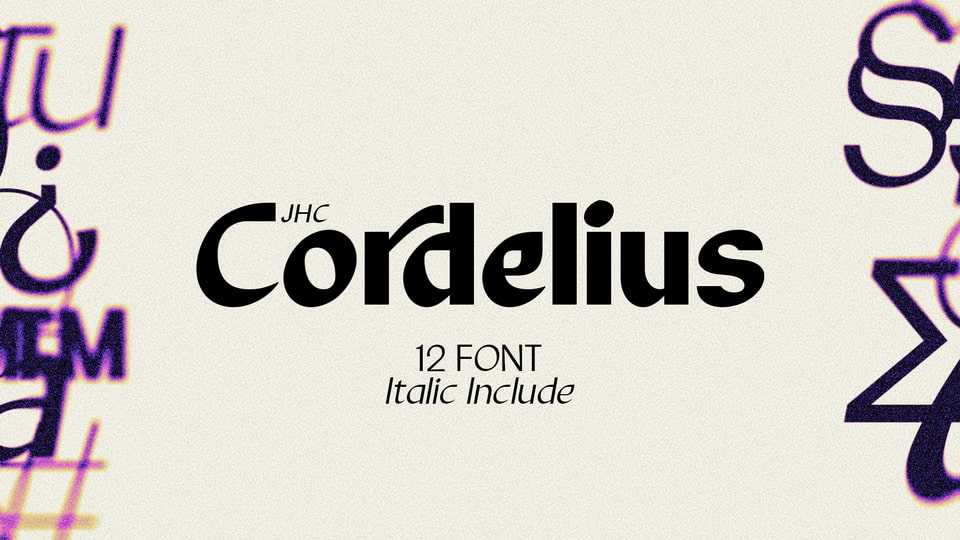
JHC Cordelius Font › Fontesk – Download Grátis
Download JHC Cordelius font, a bold, no-nonsense showpiece typeface rooted in the principles of brutalist design. With its heavy, angular structure, Cordelius embodies a bold industrial sensibility and an uncompromising presence.
Designer: Jehoo Creative